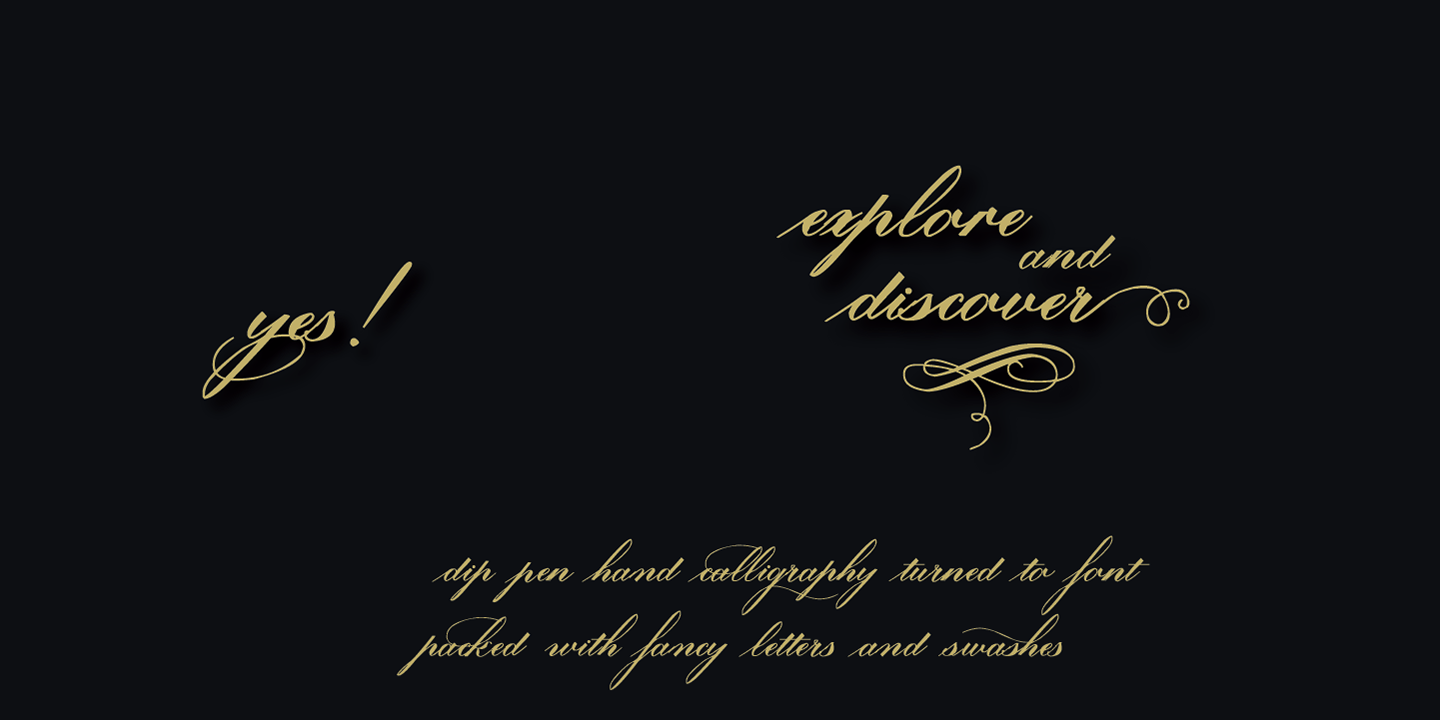
Where to Use Lavenda Font?
This graceful handwritten font is perfect for:
• Wedding invitations & stationery
• Feminine branding & logos
• Beauty product packaging
• Blog headers & social media quotes
• Boutique labels & craft projects
Why Lavenda Font is Exceptional
Lavenda stands out with its:
→ Fluid, natural handwriting strokes
→ Elegant swashes and flourishes
→ Perfect balance of readability and artistry
→ Romantic vibe that enhances luxury branding
Lavenda Font Family Features
Includes:
Regular and Bold weights
Over 100 alternates and ligatures
Multilingual support
Special decorative ornaments